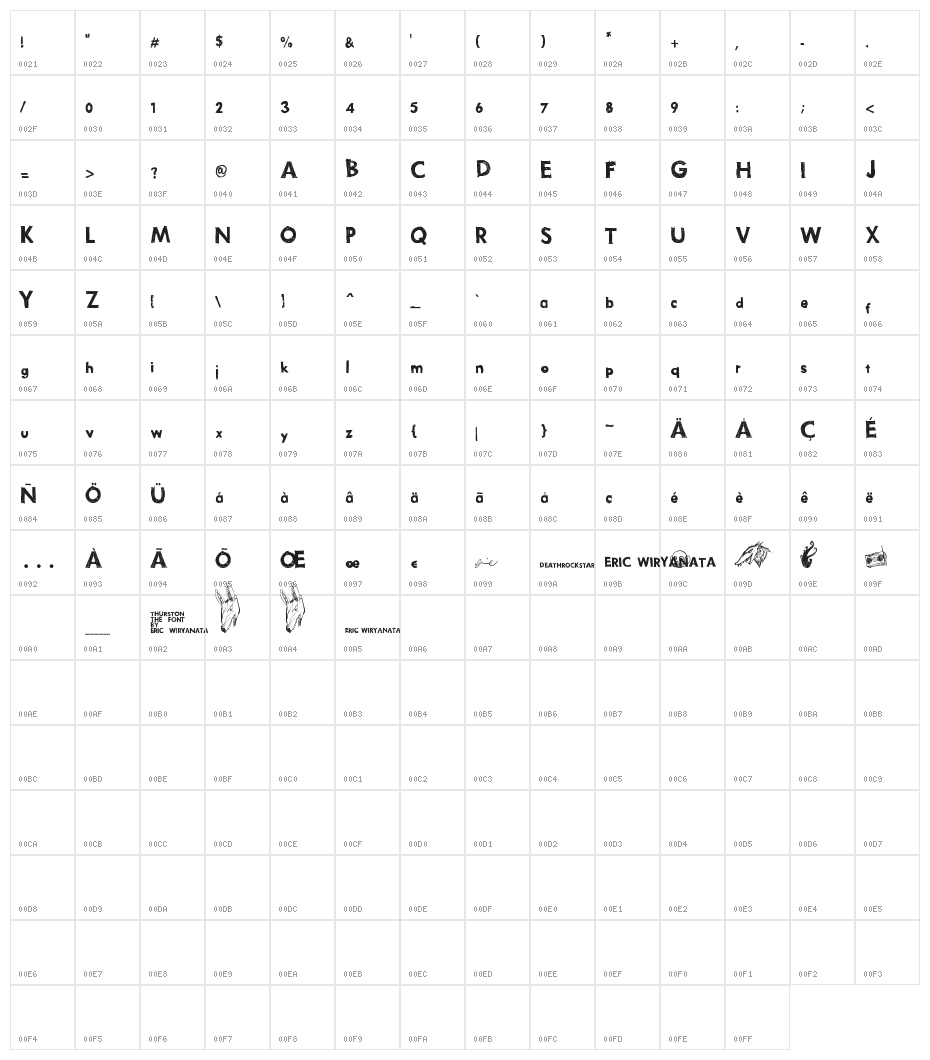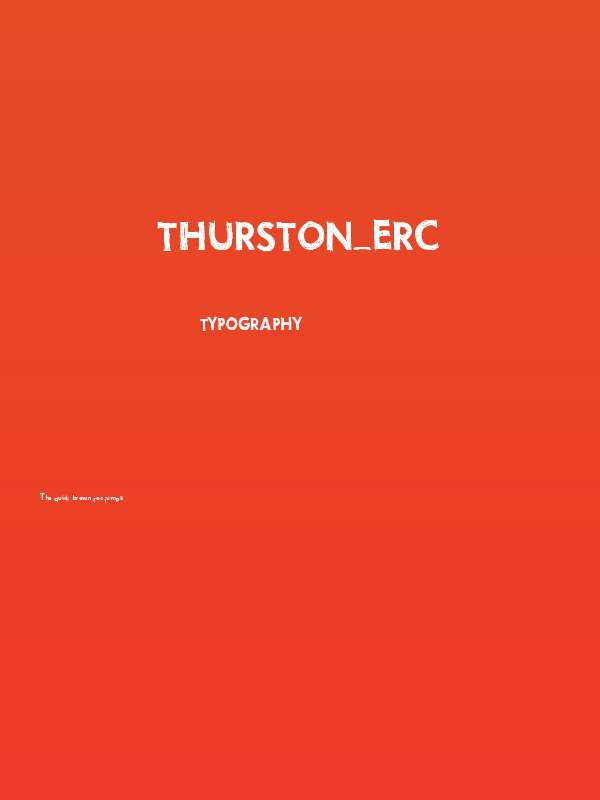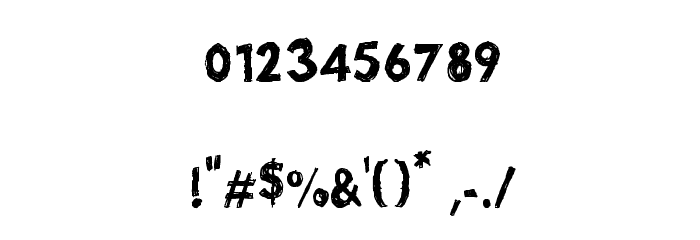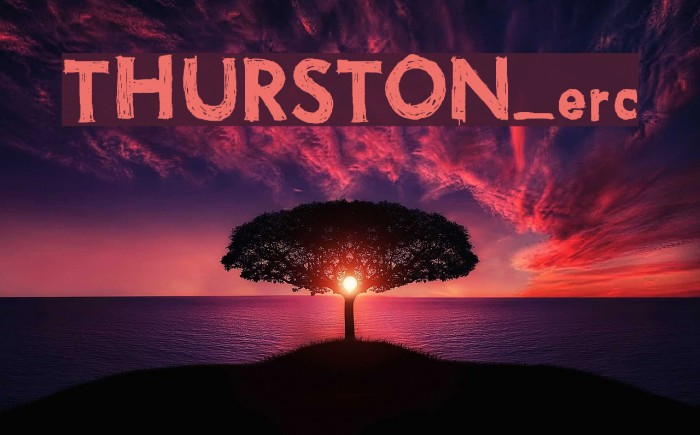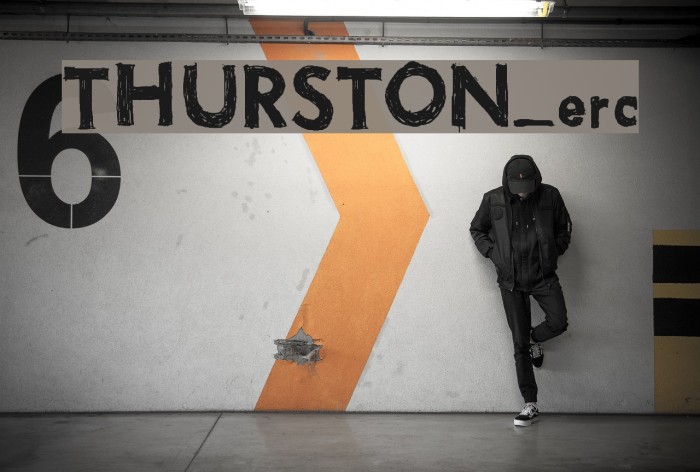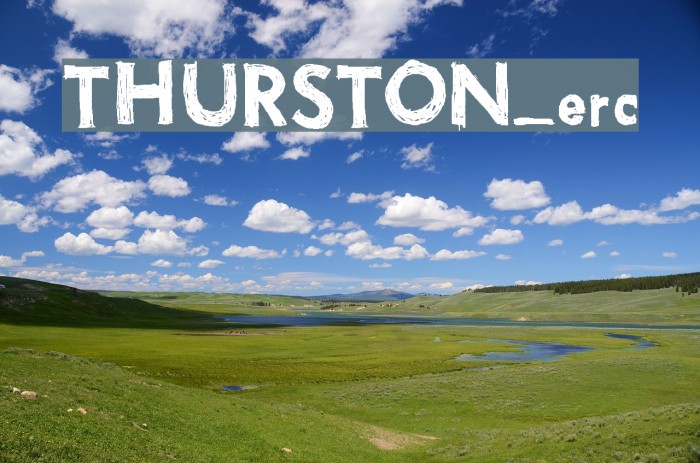
THURSTON_erc Font
THURSTON_erc Description
This font features a bold and textured style with a hand-drawn appearance. The uppercase letters are prominent and slightly irregular, giving a rustic and artistic feel. The lowercase letters maintain the same textured look, with a playful and informal touch. Numbers are consistent with the overall style, ensuring readability while maintaining the unique character of the font. Special characters are included, matching the bold and textured design. This font stands out with its distinct, handcrafted appearance, making it ideal for creative projects.
| Overall Style | Artistic, Handcrafted |
| Proposed Projects | Ideal for posters, artistic projects, branding, and packaging design where a unique and handcrafted look is desired. |